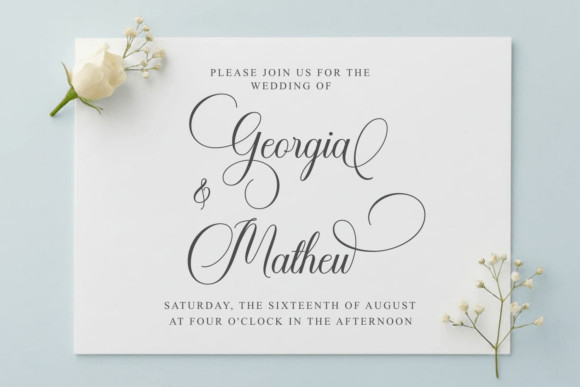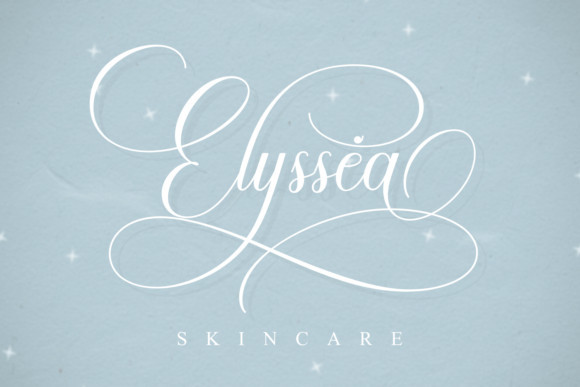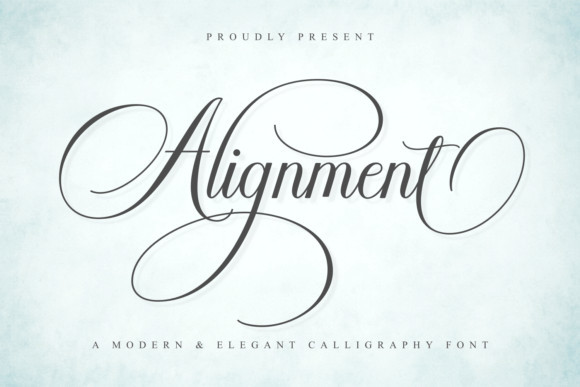
Alignment Script Font
Alignment Script Font is a modern calligraphy script font with elegant swashes and smooth handwritten strokes. Designed to be stylish, feminine, and luxurious, this font is perfect for creators who need a classy script font for both digital and print designs.
This elegant script font features flowing letterforms, beautiful curves, and balanced contrast, making it ideal for branding, logo design, wedding invitations, luxury packaging, social media, quotes, and fashion or beauty projects. The modern calligraphy style brings a romantic and sophisticated feel while staying clean and readable.
Alignment works beautifully for high-end designs and creative projects that require an elegant handwritten font with a professional look. This font is PUA encoded which means you can access all glyphs and swashes with ease!